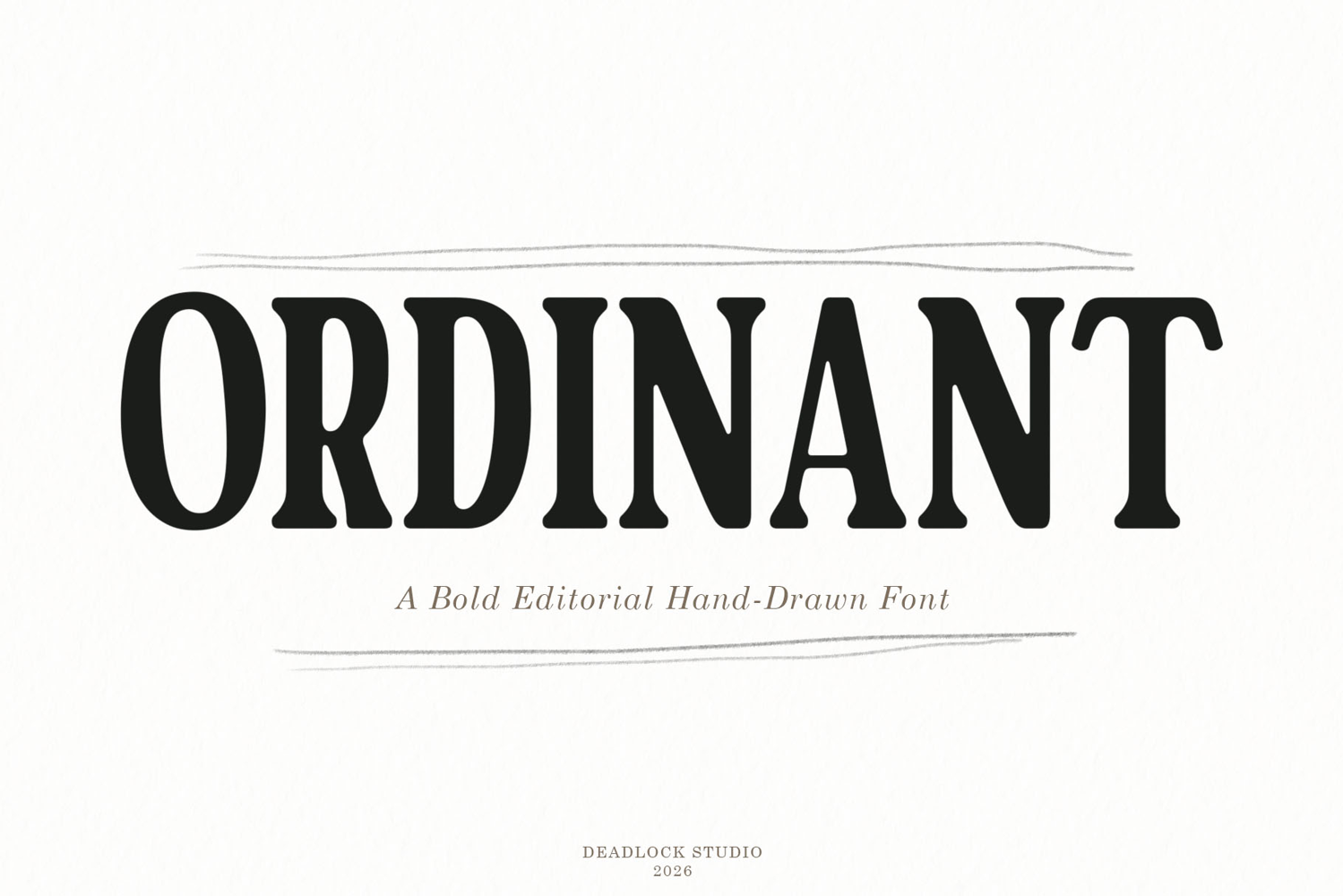
Meet Ordinant, a masterclass in modern-organic typography. Crafted with an intentional balance of structured sharpness and authentic human artistry, this font features bold, assertive serif structures softened by subtle, hand-drawn edges and textures.
It is the perfect embodiment of "grace and grit" designed for creators who demand a timeless editorial presence with a raw, artisanal soul.
Ordinant thrives where elegance meets character.
Its striking weight and organic contours make it a powerful choice for high-end display branding, cinematic poster designs, editorial lookbooks, premium homeware catalogs, and holistic wellness spaces like yoga studios or botanical packaging.
Whether used as a roaring headline or a poetic body paragraph, Ordinant commands attention while remaining deeply grounded and legible.